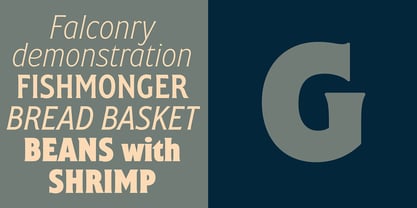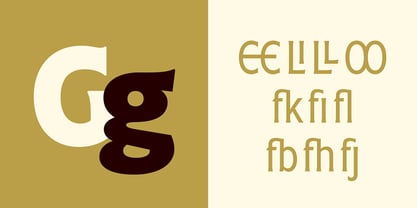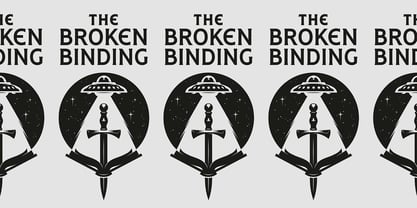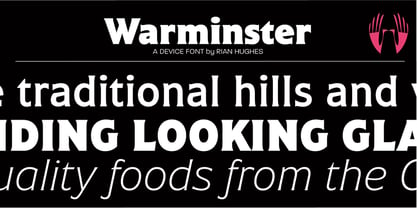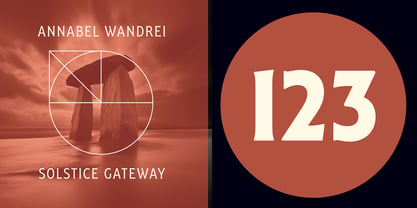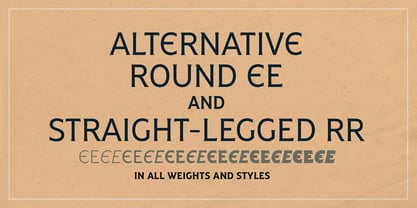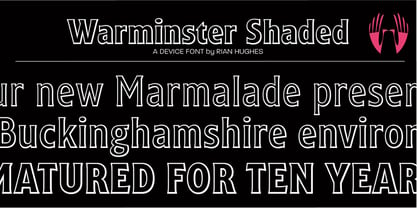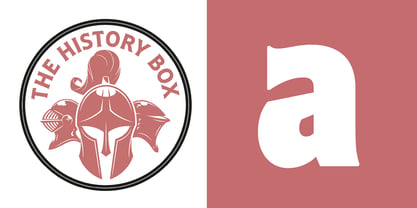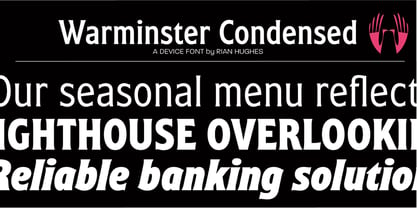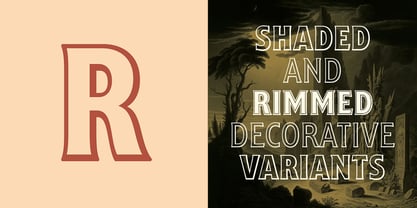
Warminster
by Device
The Warminster Font Family was designed by Rian Hughes and published by Device. Warminster contains 29 styles and family package options. More about this family
Warminster is a subtly flared, almost monolinear design with roots in the English signwriting tradition and early modern sans serifs. The form of the G, the flat-topped 3 and the angled central horizontal on the e are characteristic aspects, as is the vertical-sided M, reminiscent of Gill or Device’s Ministry.
Whilst appreciatively nodding towards heritage, Warminster is an entirely fresh design, rationally arranged over six weights, a condensed, and a series of decorative shaded and inline variants. The italic features cursive forms, especially the lowercase a, g and e. The full family provides a range of weights suitable for both headline and text – a complete type system.
Also included in all weights and styles are old-style numerals, an alternative rounded E, and a small selection of optional ligatures that provide opportunities for custom headlines and logotypes.